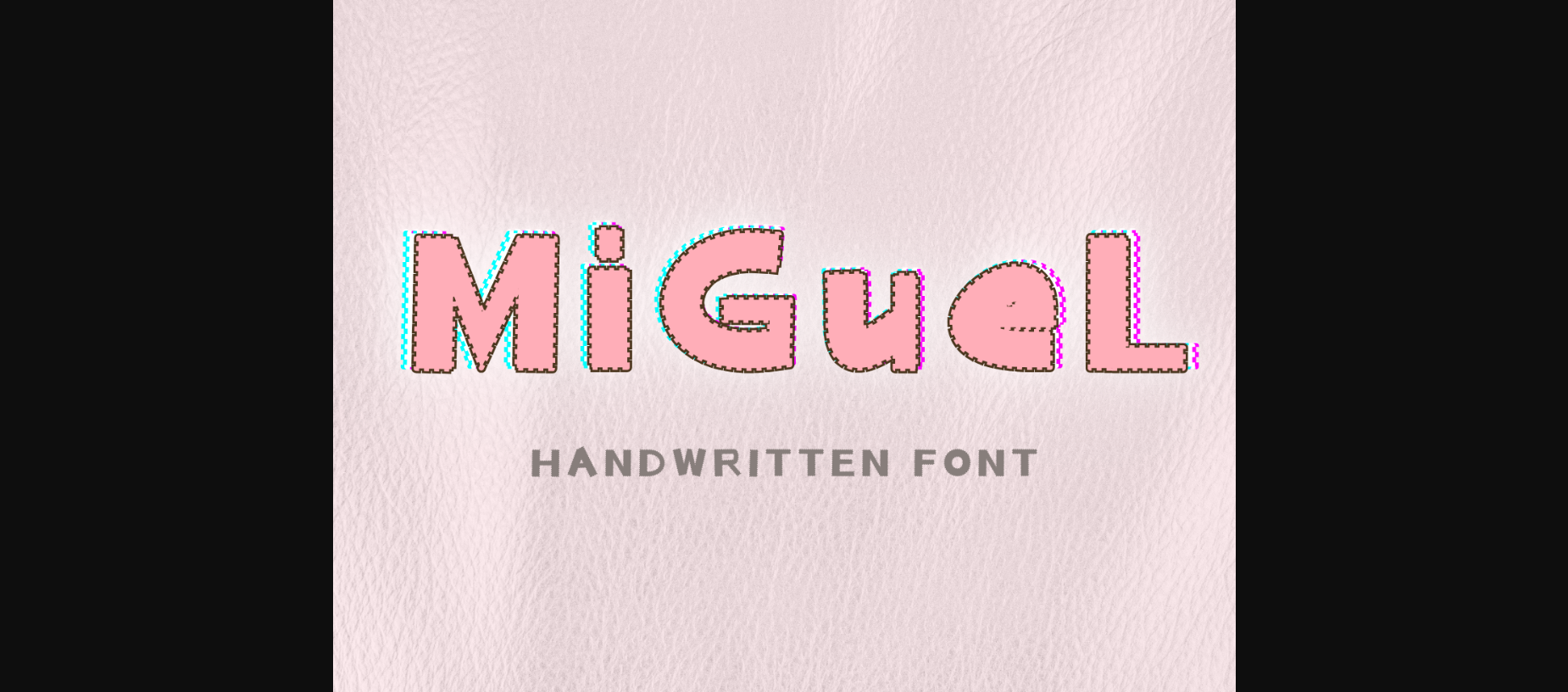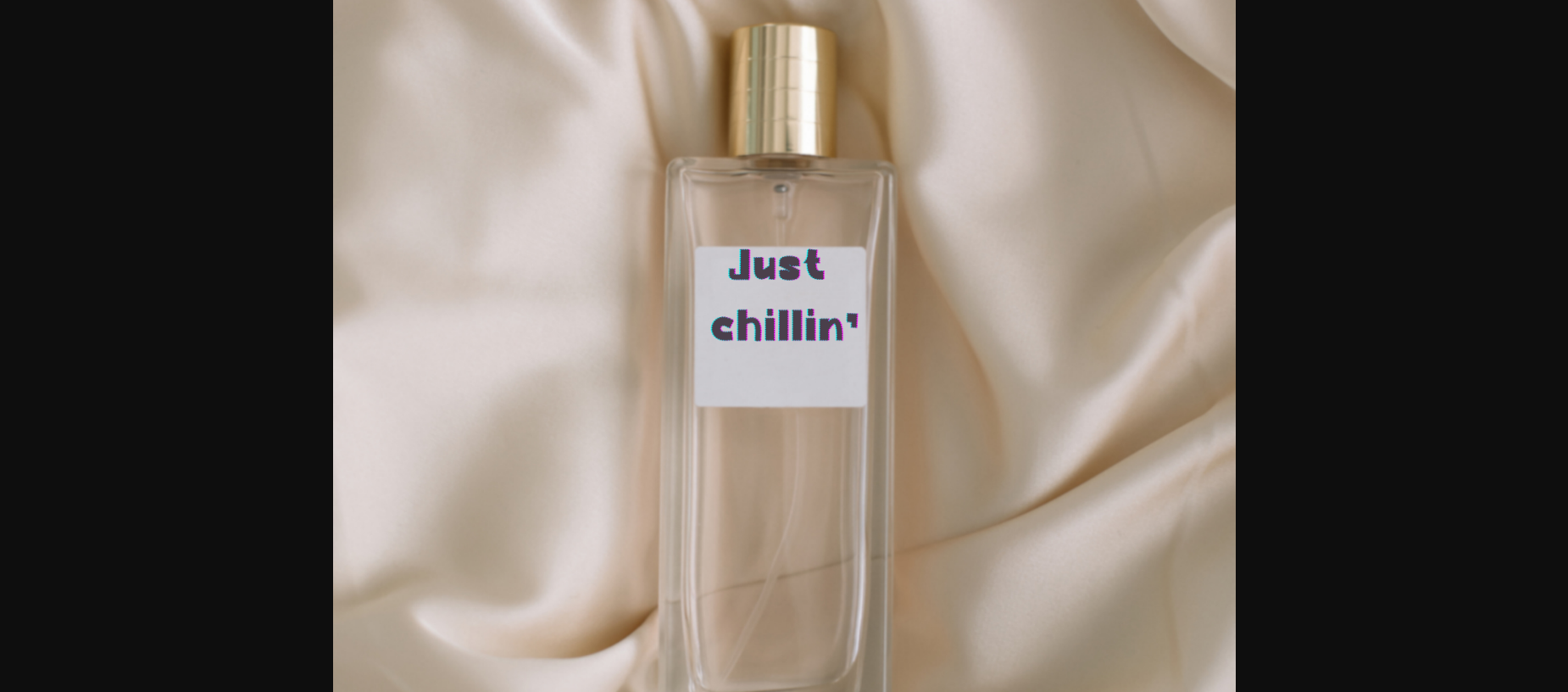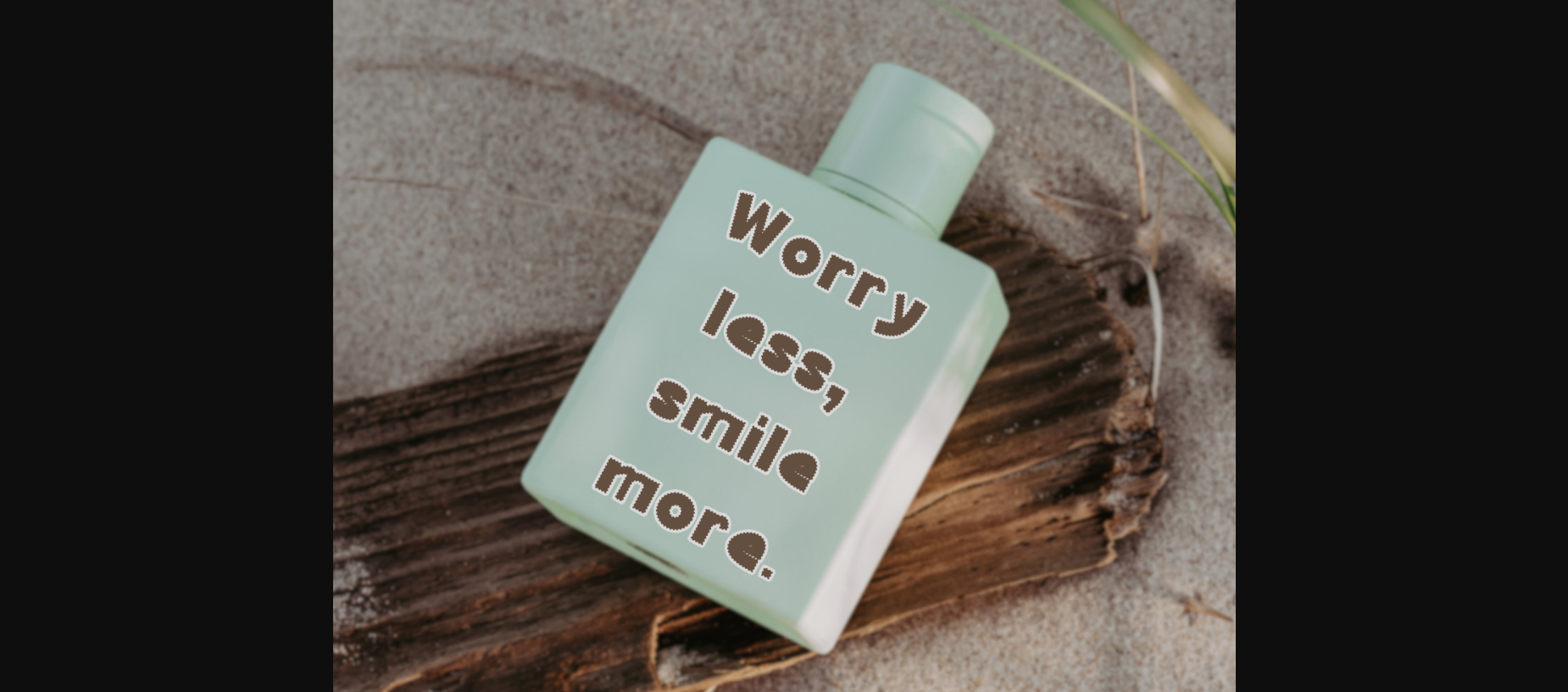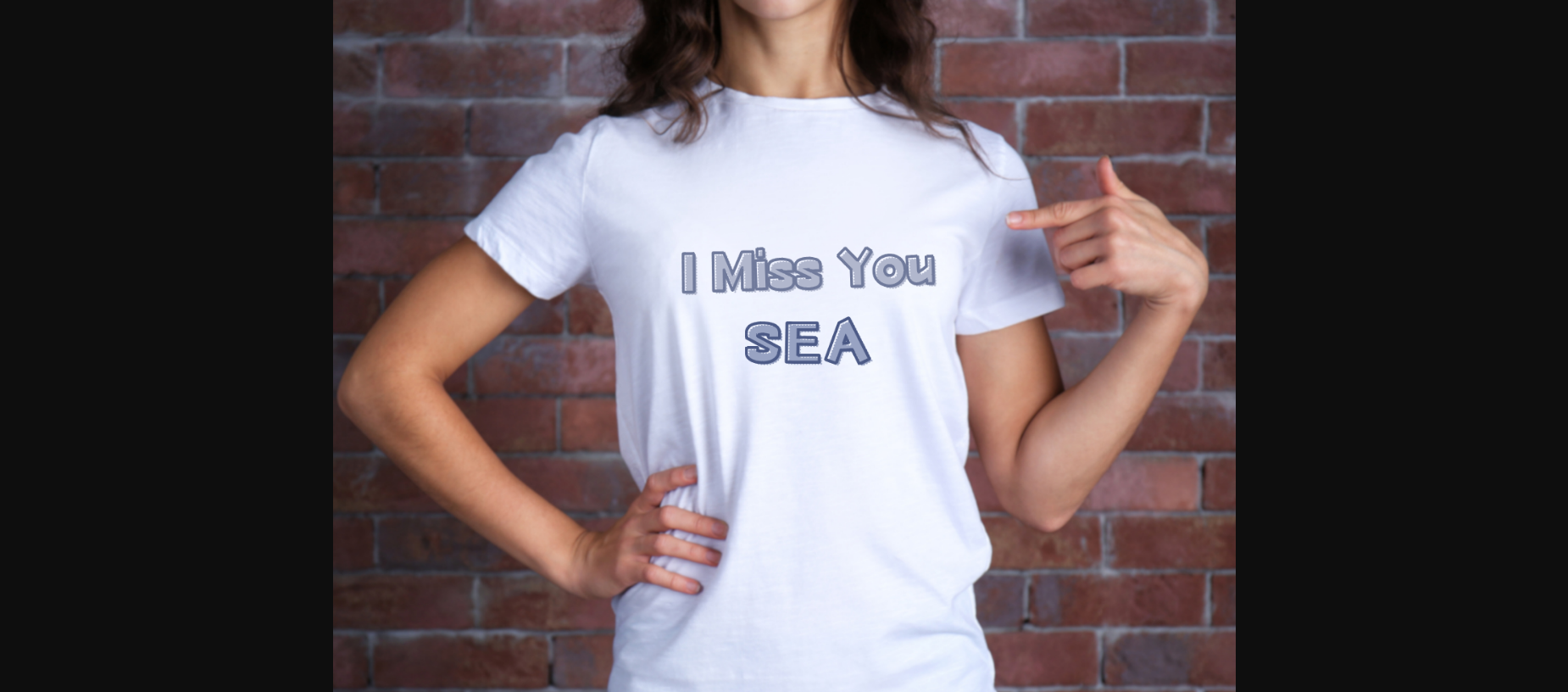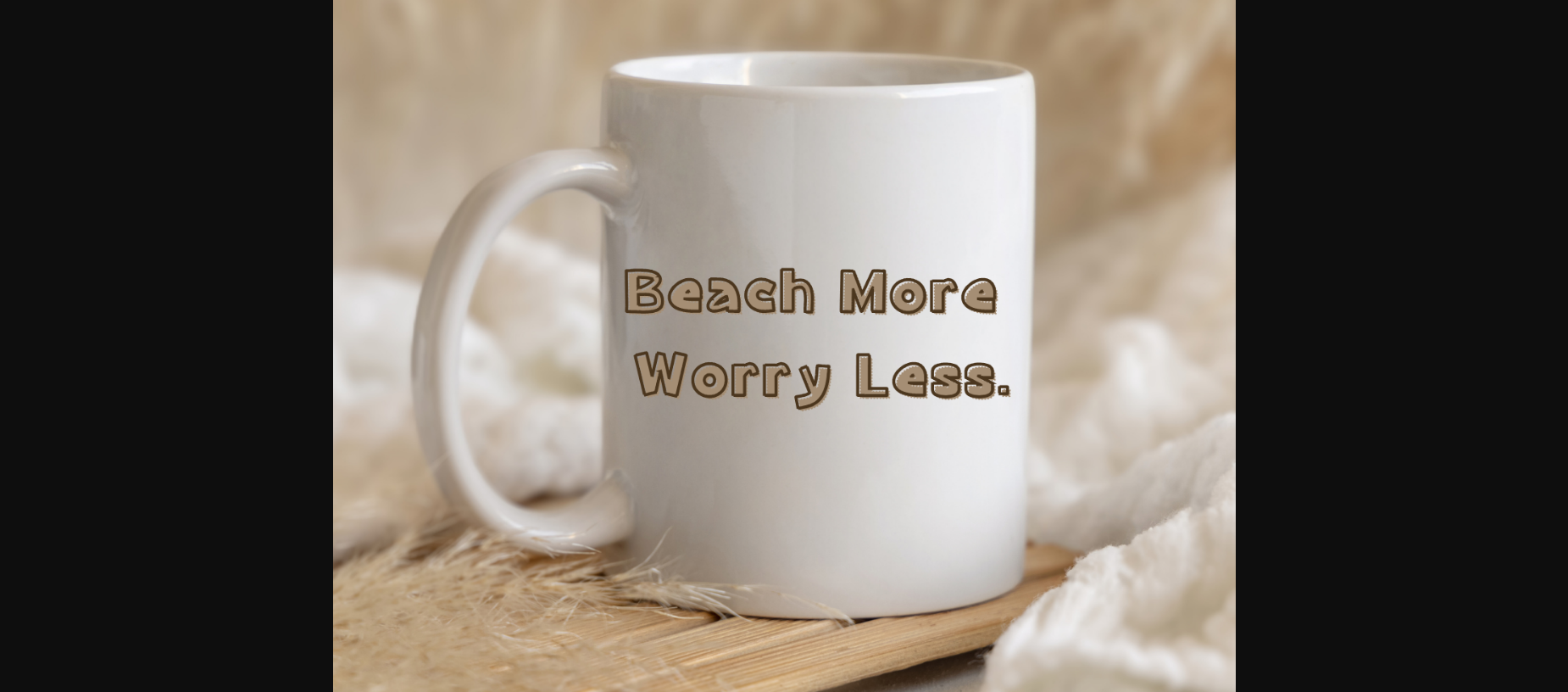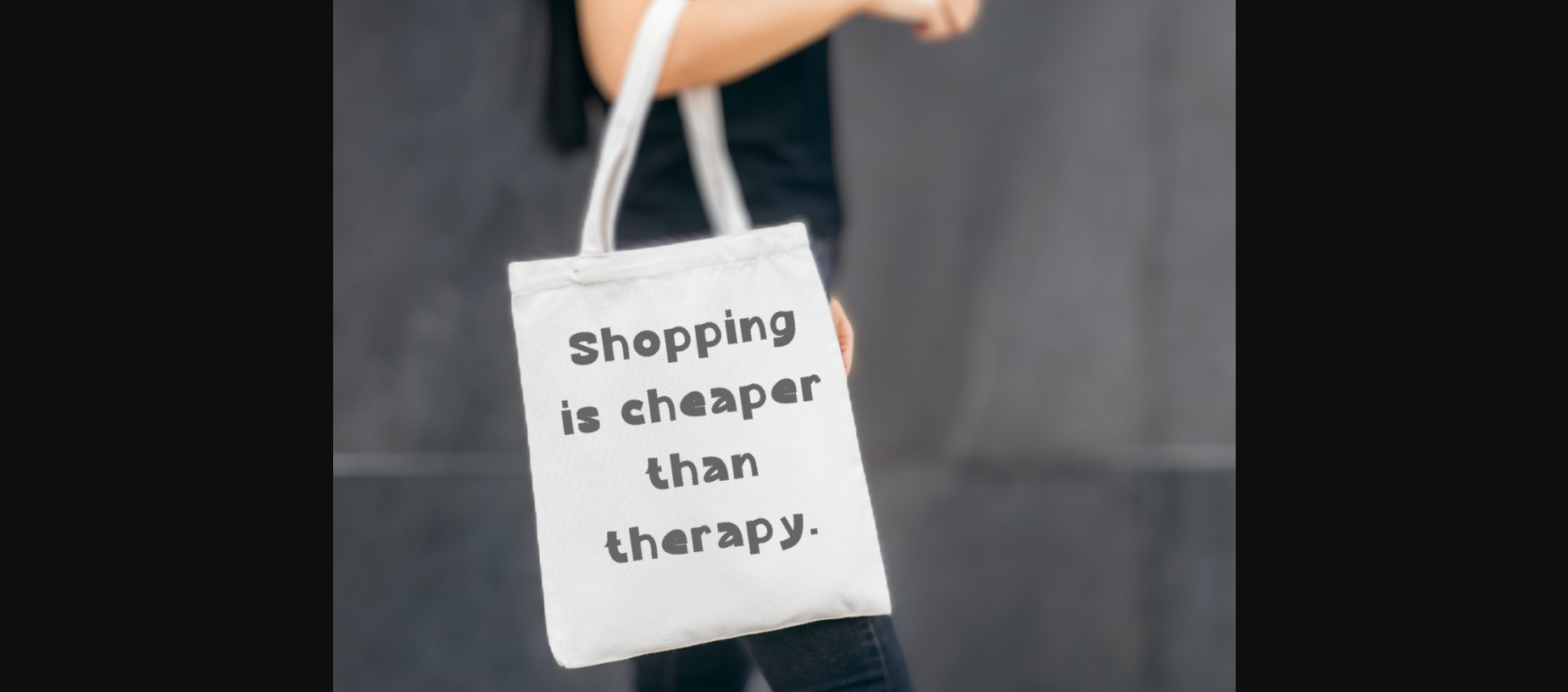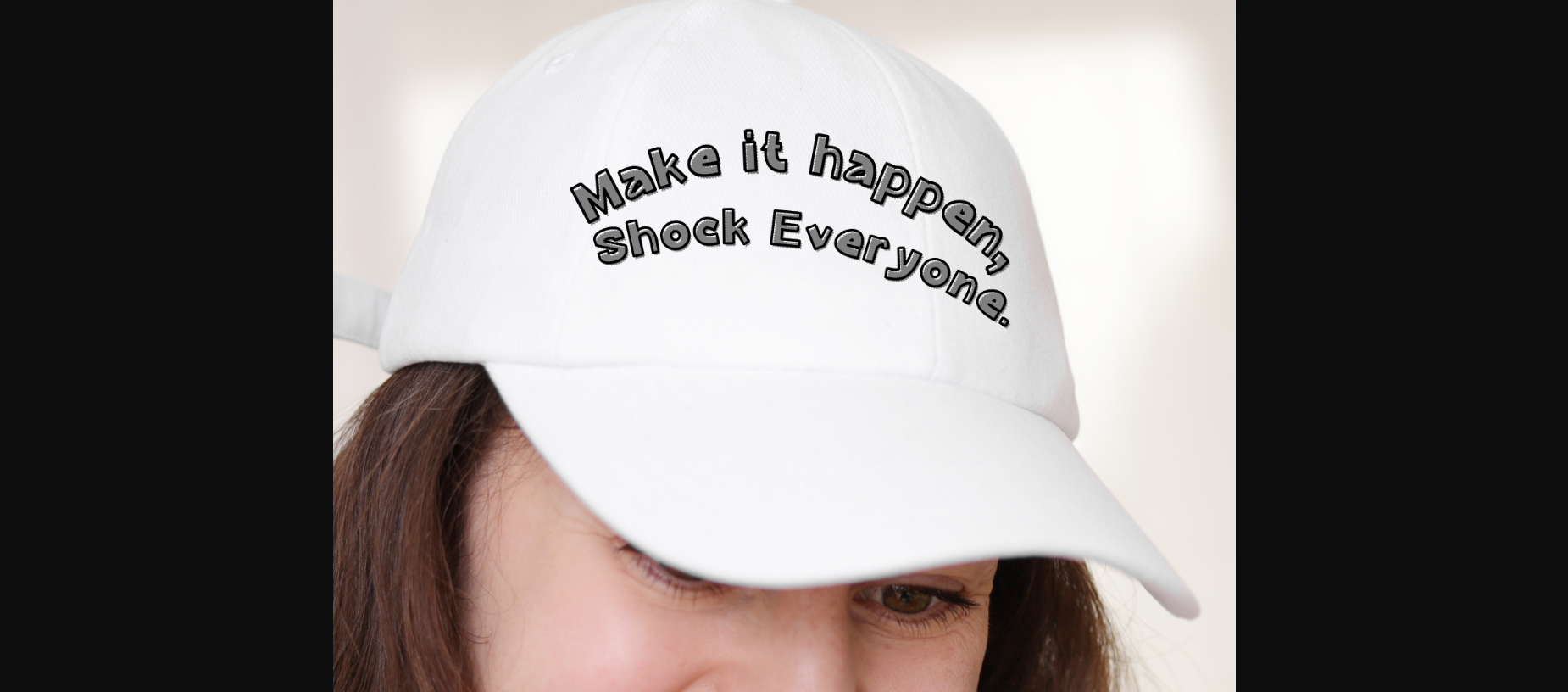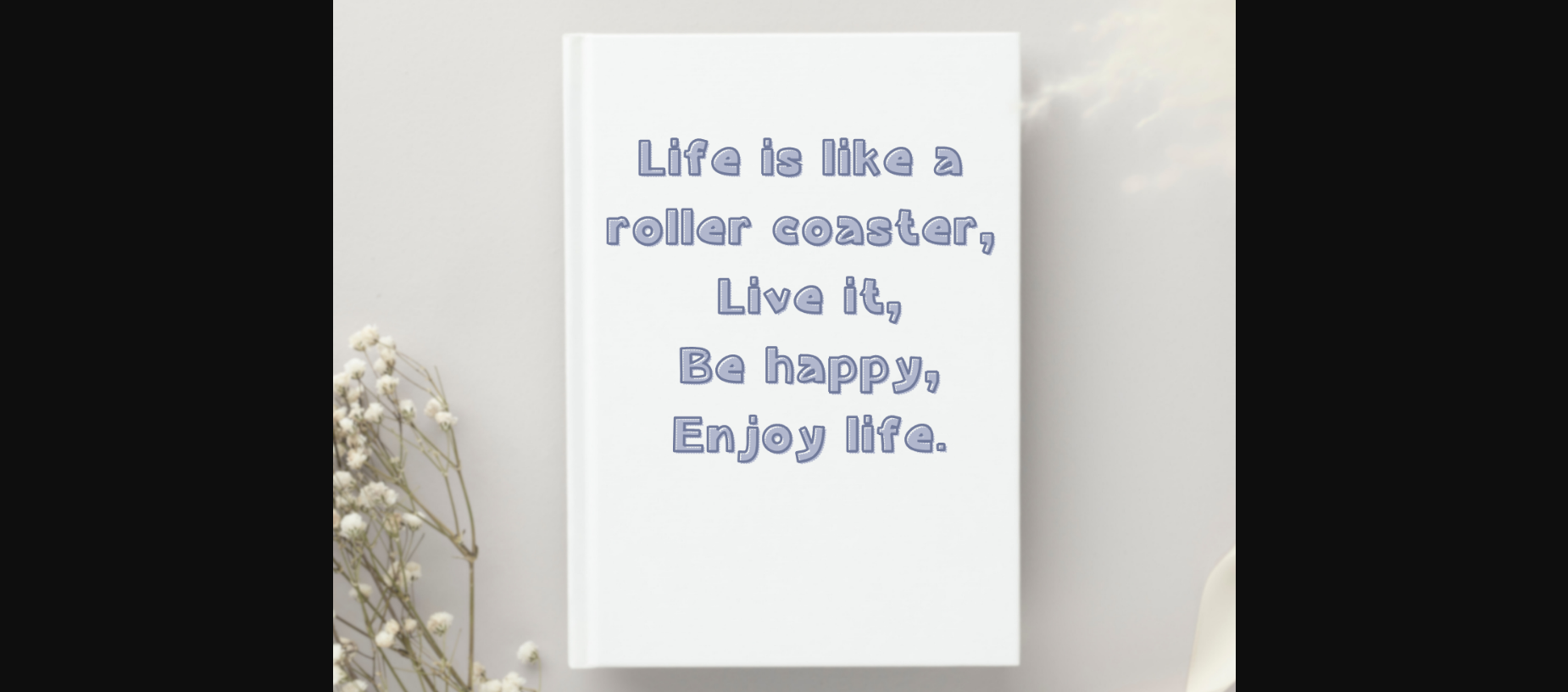
Miguel Font
About Miguel Font
Miguel is a handwritten font designed in a friendly and lovely style. It would be awesome for your diary planner and journal which you are able to use every day, festivals, posters, blogs, clothing, child-related designs, greeting cards, social media posts, or anything that needs a friendly touch. Add it now to your fonts library, and it will bring any of your DIY projects to life.